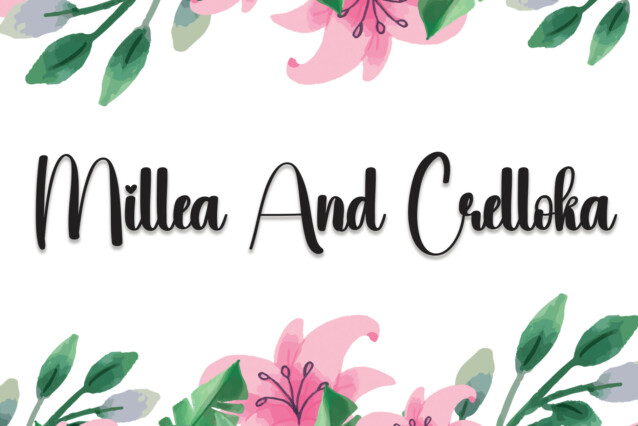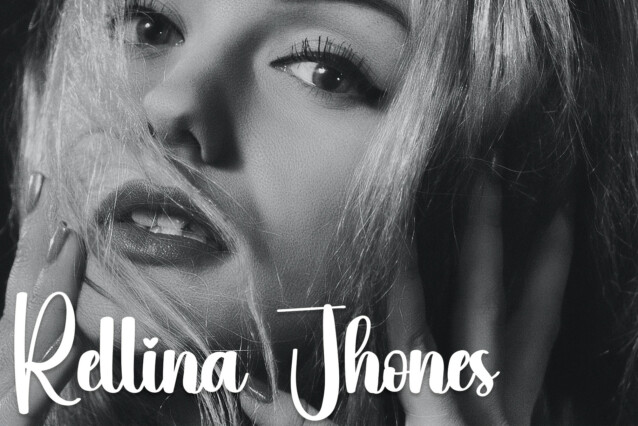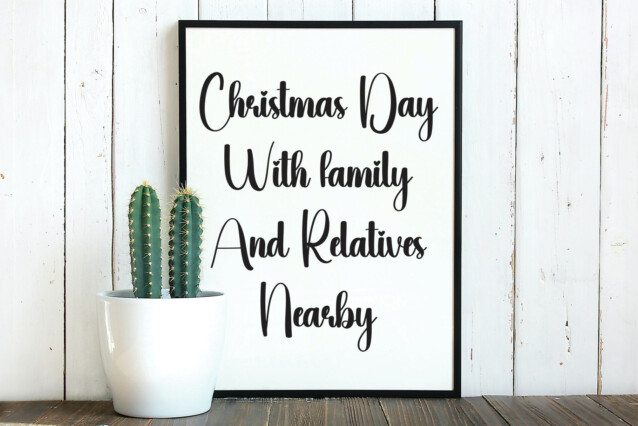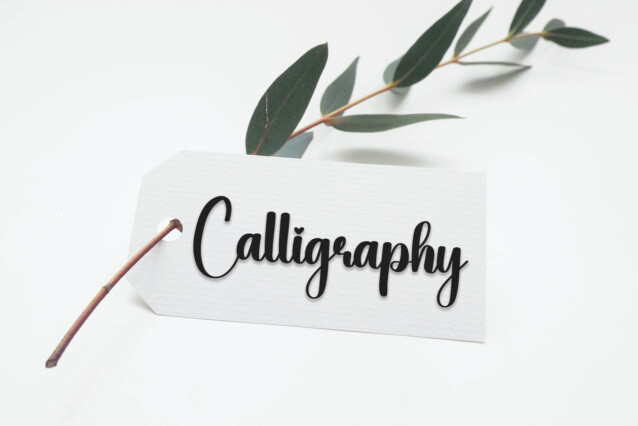
Celestial Script Font
Celestial Script Font is an enchanting handwritten font. This versatile script font has a wide spectrum of applications ranging from greeting cards to headlines and is guaranteed to add a romantic feel to your next project.